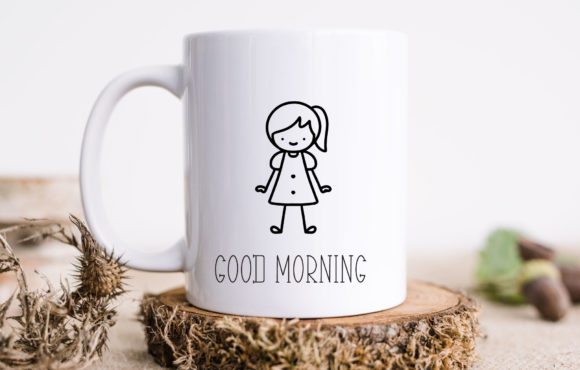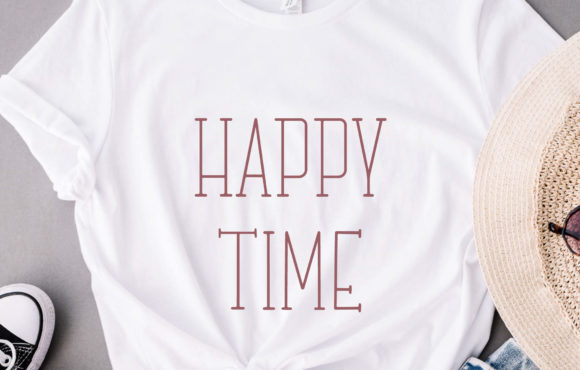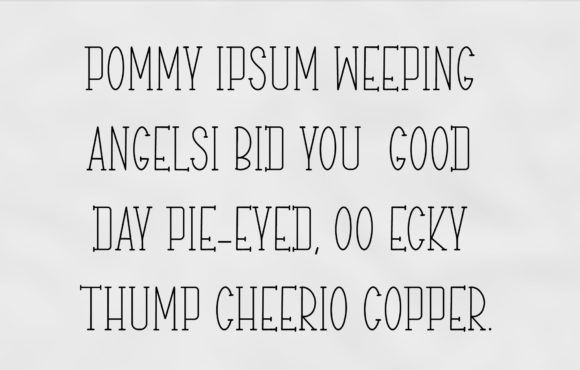
Introduction to Beauty Bloom Font Font
Fonts play a crucial role in design, and the Beauty Bloom Font font is a typeface that brings both character and versatility to any project. Whether you’re working on a branding project, a website, or a print design, the Beauty Bloom Font font offers a unique style that can elevate your work.
Beauty Bloom is a sweet and vintage handwritten font.
Clean and a little bit quirky, this font is the perfect fit for all of your logos, branding, social media, and crafty DIY projects .
Key Features of Beauty Bloom Font Font
Why Choose Beauty Bloom Font Font?
The Beauty Bloom Font font is more than just a typeface – it’s a design tool that helps you communicate your message with style and clarity. Its unique character set and versatile design make it suitable for a wide range of applications, from elegant invitations to bold headlines.
With its carefully crafted letterforms and balanced proportions, the Beauty Bloom Font font ensures readability and visual appeal across all mediums.
What makes Beauty Bloom Font font special?
The Beauty Bloom Font font stands out with its unique design, exceptional readability, and versatility across various design applications.